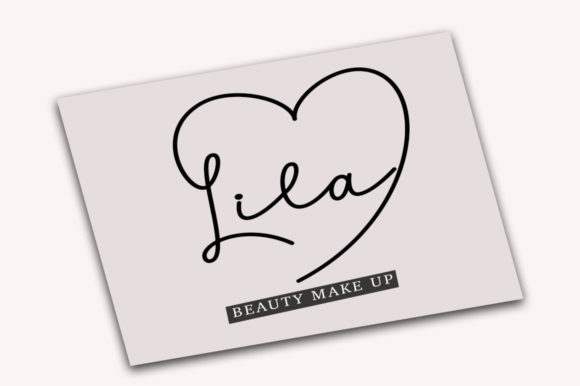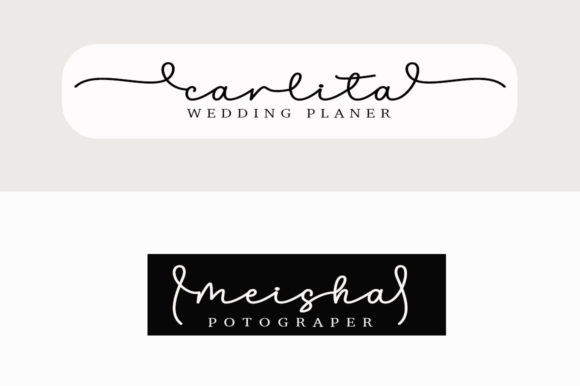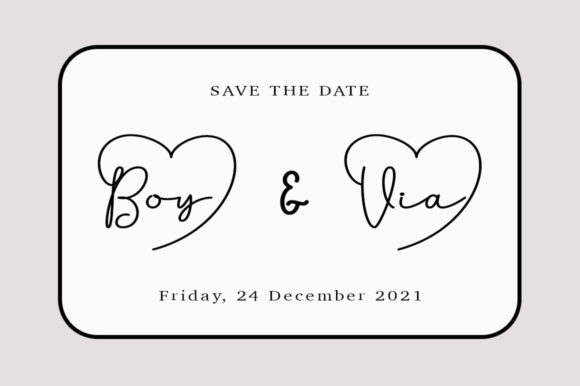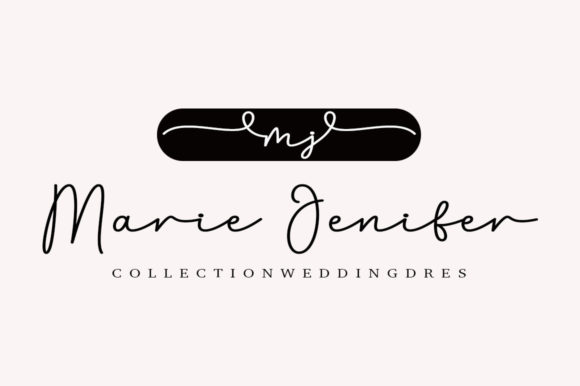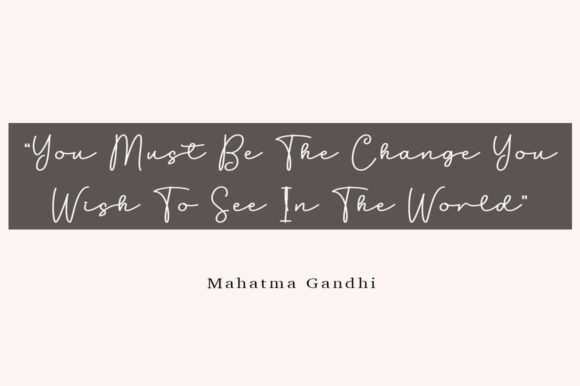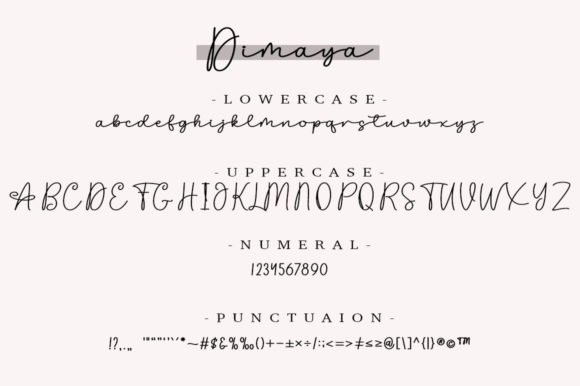
Introducing Dimaya Font: The Ultimate Romantic Calligraphy Typeface
Are you looking for a font that adds a touch of luxury and romance to your design projects? Look no further than Dimaya Font! This stunning calligraphy typeface is designed to make your designs stand out with its unique and elegant characters that dance along the baseline.
What Makes Dimaya Font Special?
Dimaya Font is a romantic and sweet calligraphy typeface that is perfect for designers and crafters who want to add a touch of sophistication and elegance to their work. The font features beautiful characters that are carefully crafted to create a sense of movement and fluidity, giving your designs a dynamic and eye-catching look.
Key Features of Dimaya Font
- Romantic and Sweet Design: Dimaya Font is designed to evoke feelings of love and romance, making it perfect for wedding invitations, Valentine’s Day designs, and other projects that require a touch of sweetness.
- Luxury Spark: The font’s elegant and sophisticated design adds a luxury spark to any design project, making it perfect for high-end branding, packaging, and advertising designs.
- PUA Encoded: Dimaya Font is PUA encoded, which means you can access all of the amazing glyphs and ligatures with ease. This makes it easy to use the font in your designs and get the most out of its features.
- Characters that Dance Along the Baseline: The font’s unique characters are designed to dance along the baseline, creating a sense of movement and fluidity that adds visual interest to your designs.
How to Use Dimaya Font in Your Designs
Dimaya Font is easy to use and can be incorporated into a variety of design projects, including:
- Wedding Invitations: Use Dimaya Font to create beautiful and elegant wedding invitations that set the tone for a romantic and memorable day.
- Branding and Packaging: Add a touch of luxury and sophistication to your branding and packaging designs with Dimaya Font.
- Advertising Designs: Use Dimaya Font to create eye-catching and effective advertising designs that grab attention and leave a lasting impression.
- Digital Art and Crafting: Dimaya Font is perfect for digital art and crafting projects, such as making digital papers, journals, and planners.
Tips and Tricks for Getting the Most Out of Dimaya Font
Here are some tips and tricks for getting the most out of Dimaya Font:
- Experiment with Different Sizes and Colors: Dimaya Font looks great in a variety of sizes and colors, so don’t be afraid to experiment and find the combination that works best for your design.
- Use the Font’s Glyphs and Ligatures: Take advantage of Dimaya Font’s PUA encoding and use the font’s glyphs and ligatures to add visual interest and personality to your designs.
- Pair with Other Fonts: Dimaya Font pairs well with other fonts, so try combining it with a sans-serif font for a modern and elegant look.
Dimaya Font is a romantic and sweet calligraphy typeface that is perfect for designers and crafters who want to add a touch of luxury and sophistication to their work. With its unique characters, PUA encoding, and elegant design, Dimaya Font is sure to make your designs stand out. Whether you’re creating wedding invitations, branding and packaging designs, or digital art and crafting projects, Dimaya Font is the perfect choice.